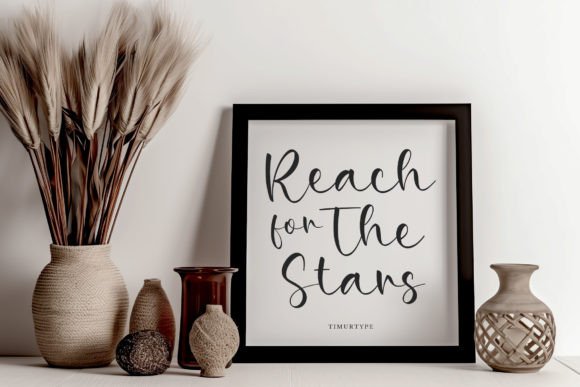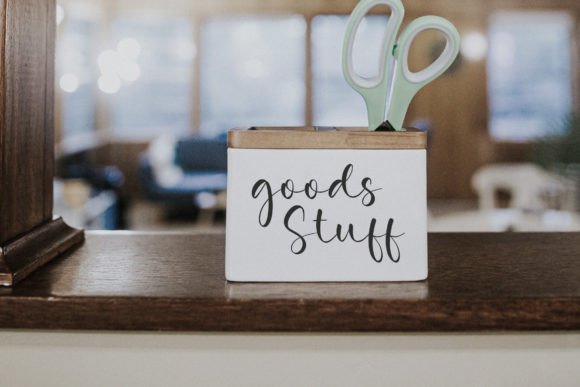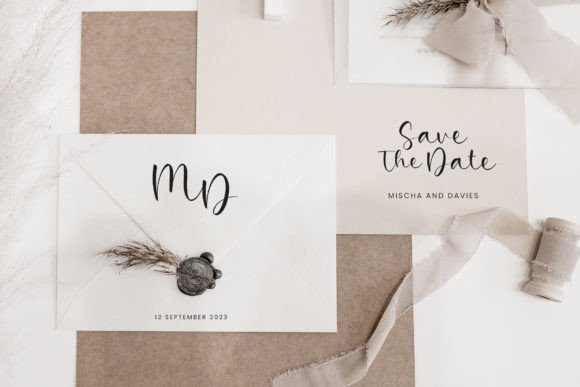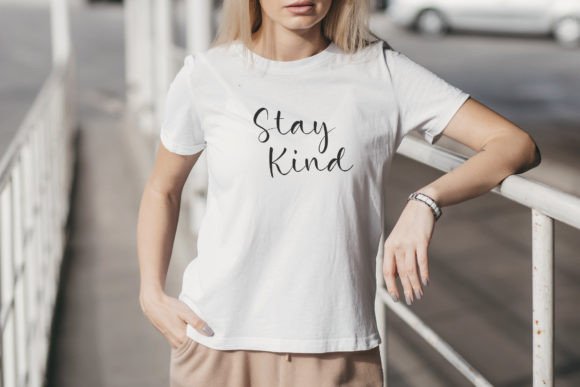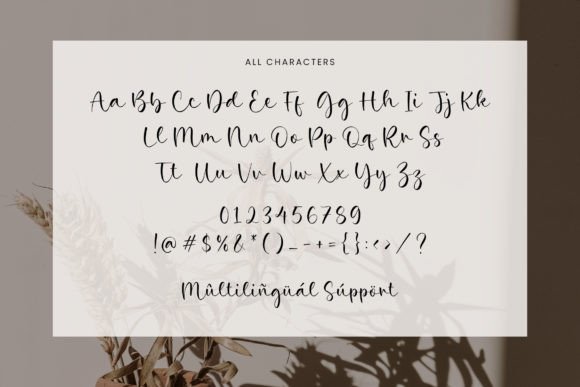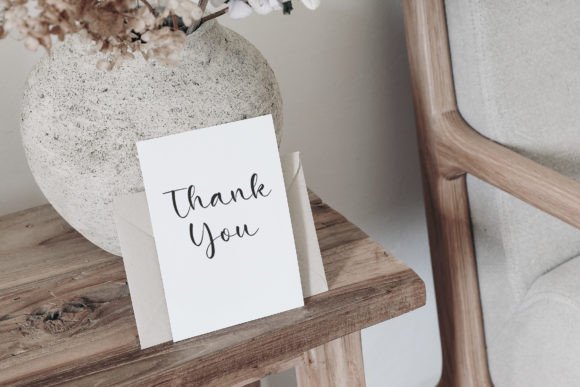
Introducing Broken White Font: The Perfect Handwritten Script for Creative Projects
Are you a designer or crafter looking for a unique and versatile font to elevate your creative projects? Look no further than Broken White Font, a beautiful handwritten script font that is perfect for a wide range of applications. From product packaging and branding projects to magazines, social media, and wedding designs, Broken White Font is the ideal choice for adding a personal touch to your work.
What is Broken White Font?
Broken White Font is a carefully crafted handwritten script font that features a distinctive, broken white aesthetic. The font’s unique character is achieved through a combination of bold lines, subtle imperfections, and a dash of elegance. The result is a font that is both stylish and approachable, making it perfect for a wide range of creative projects.
Key Features of Broken White Font
- Handwritten script font: Broken White Font is a genuine handwritten script font, carefully crafted to capture the nuances and imperfections of human handwriting.
- Versatile and adaptable: Whether you’re working on a product packaging project, a branding campaign, or a wedding design, Broken White Font is the perfect choice for adding a personal touch.
- Unique aesthetic: The font’s distinctive broken white aesthetic sets it apart from more traditional fonts, making it perfect for designers and crafters looking to add a unique touch to their work.
- Elegant and approachable: Broken White Font strikes the perfect balance between elegance and approachability, making it suitable for a wide range of creative projects.
Use Cases for Broken White Font
So, what can you use Broken White Font for? The possibilities are endless! Here are just a few ideas to get you started:
- Product packaging: Add a personal touch to your product packaging with Broken White Font, perfect for labels, tags, and more.
- Branding projects: Use Broken White Font to create a unique and memorable brand identity that sets you apart from the competition.
- Magazines and publications: Add a touch of elegance to your magazine or publication with Broken White Font, perfect for headings, titles, and more.
- Social media graphics: Use Broken White Font to create eye-catching social media graphics that are sure to grab attention.
- Wedding designs: Make your wedding designs truly special with Broken White Font, perfect for invitations, programs, and more.
Why Choose Broken White Font?
So, why should you choose Broken White Font for your next creative project? Here are just a few reasons:
- Unique and distinctive: Broken White Font is a truly unique and distinctive font that will set your work apart from the competition.
- High-quality design: Broken White Font is carefully crafted to the highest standards, ensuring a professional finish every time.
- Versatile and adaptable: Whether you’re working on a small project or a large-scale design, Broken White Font is the perfect choice.